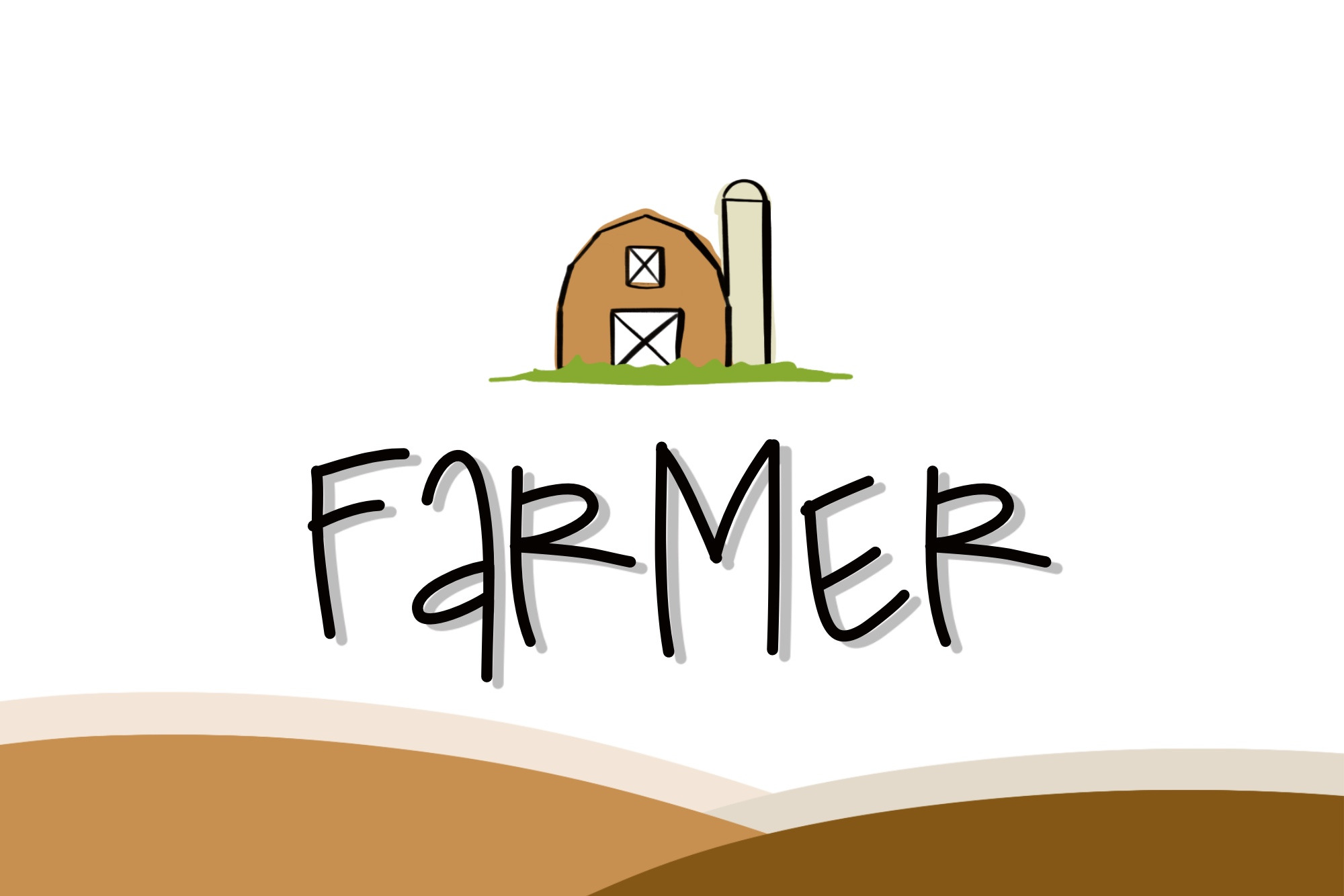
Farmer Font
Farmer font, is an irregular glyphs font, combined small and caps, designed for a restaurant blackboard, and with a great look! Be creative use it in all you want.